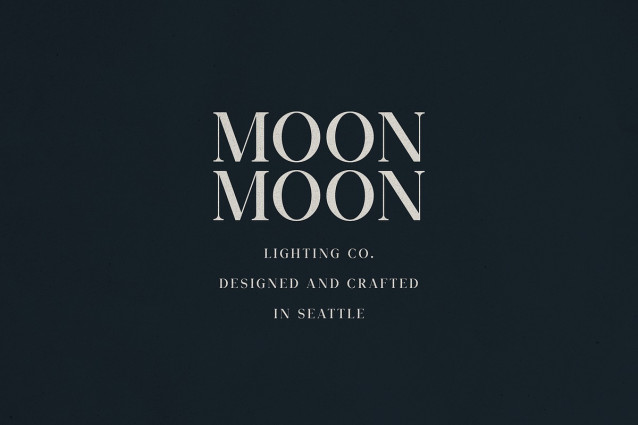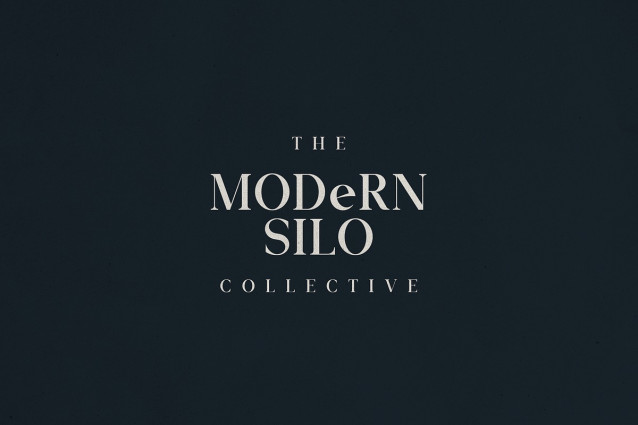
Klyra Serif Font
Klyra Serif Font, a high-contrast modern serif font that effortlessly blends timeless sophistication with contemporary refinement. Perfect for luxury branding, editorial layouts, logos, packaging, and home décor marketing, Klyra is your go-to typeface for elevating visual storytelling.